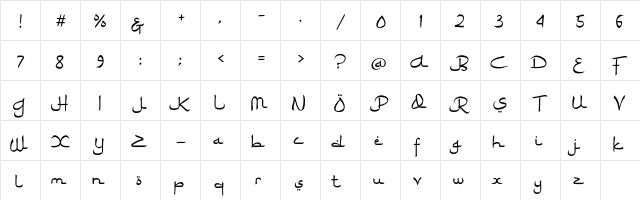
Ramadhan Karim Regular
Design Context for Ramadhan Karim Typeface
Ramadhan Karim is a composed and adaptable typeface that performs quietly and consistently across a wide range of design contexts.